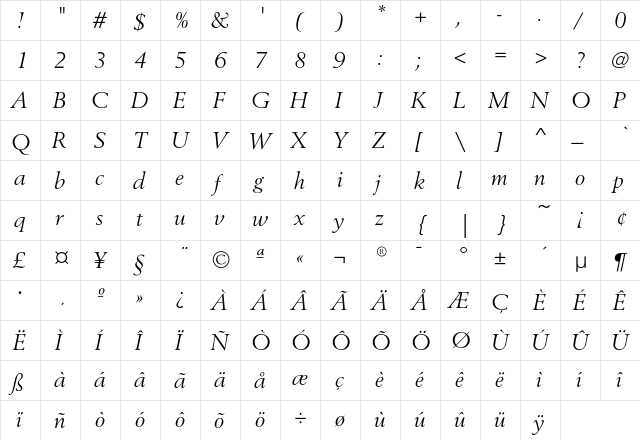
BerlingEF-RegularItalic Regular
Design Context for BerlingEF-RegularItalic Typeface
BerlingEF-RegularItalic offers clean, dependable letterforms without strong stylistic allegiance, making it a practical choice for designers who need flexibility. Its italic angle brings a sense of urgency and motion to the letterforms.